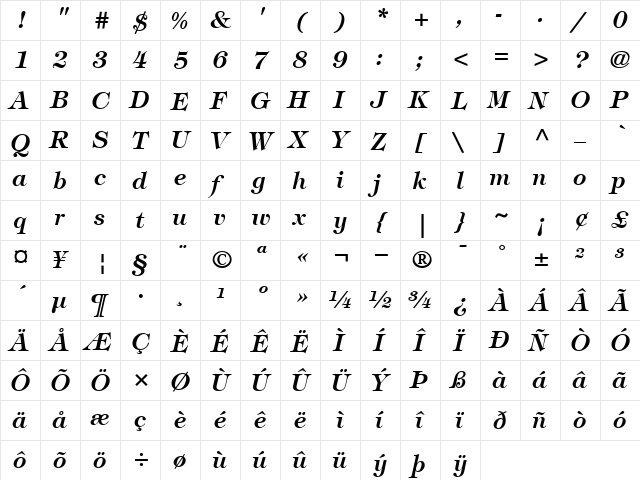
ITCTiffany-Demi DemiItalic Font Preview
ITCTiffany-Demi DemiItalic
Design Context for ITCTiffany-Demi Typeface
ITCTiffany-Demi is a composed and adaptable typeface that performs quietly and consistently across a wide range of design contexts. Its italic angle brings a sense of urgency and motion to the letterforms.
Pro Tip: Try ITCTiffany-Demi for annotation and caption copy alongside an upright companion — the contrast in angle creates a dynamic but ordered typographic system.